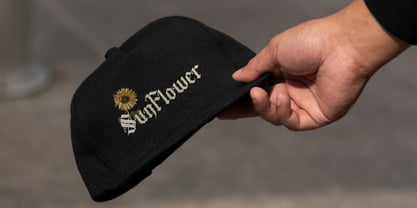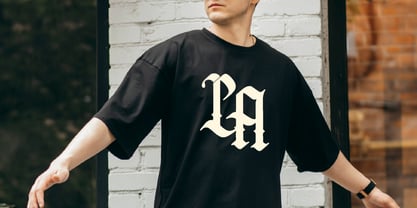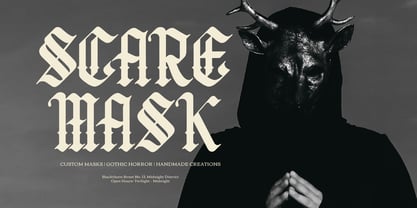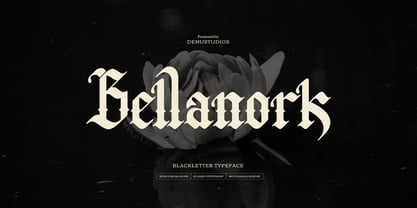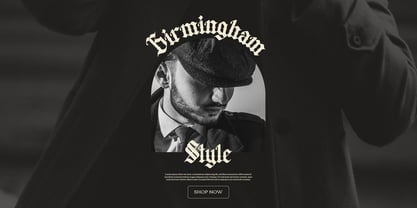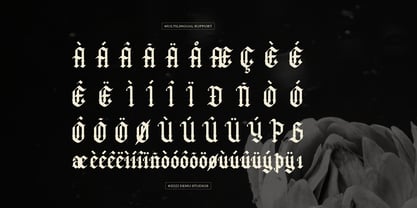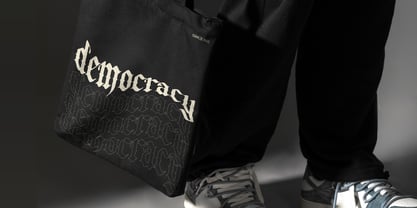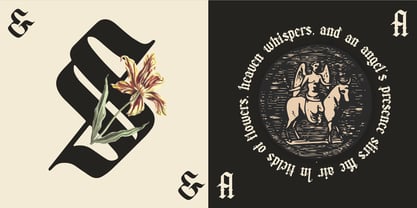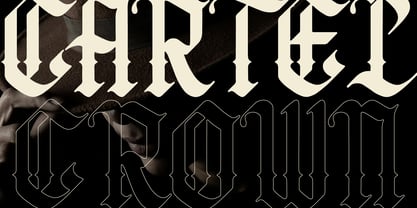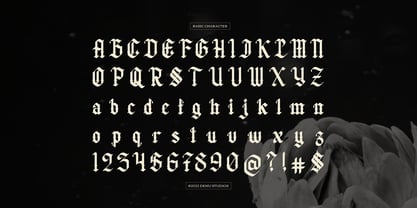
Bellanork
by Denustudio
The Bellanork Font Family was designed by Dede Nugraha and published by Denustudio. Bellanork contains 1 styles.
Bellanork | Blackletter Typeface, from Denustudios, suitable for any projects such as: logos, branding projects, homeware designs, product packaging, mugs, quotes, posters, shopping bags, t-shirts, book covers, name card, invitation cards, greeting cards, label, photography, watermark, special events, and all your other lovely projects that need Blackletter Typeface a taste.